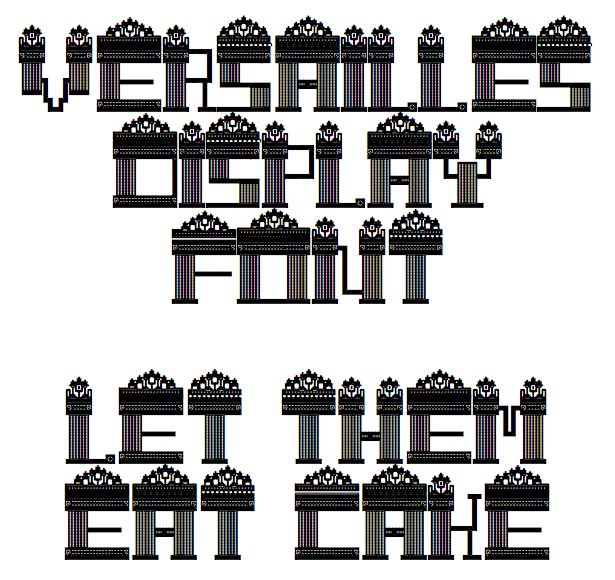
Great, UWE designers are back :) This looks stylish, it has the feel of importance, power and beauty. Each glyph is a symphony for the eyes. Yet it remains legible when used in text. Well done 10/10
@ 77: UWE  Pupils and students from many schools, colleges and universities around the world (!) join FS to make glyphs/fonts as part of Art-Design courses. They follow what their course briefs demand (some kids are 10 which makes our encouragement and choice of words even more important...), and we "FS Oldies" enjoy swapping messages, seeing new ideas and trends and often get inspiration for our own new glyph shapes and fonts.
Versaillesby mariamusing